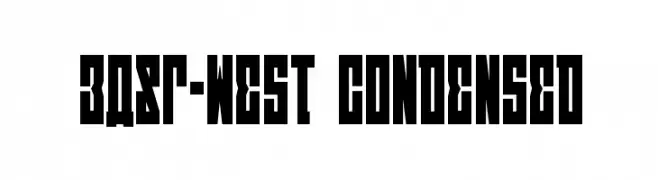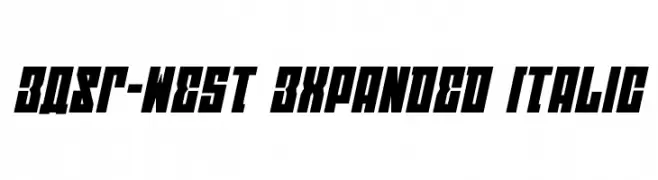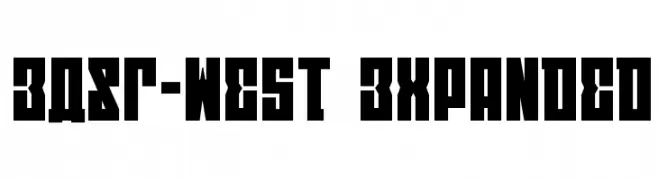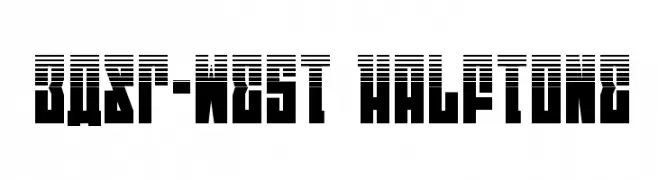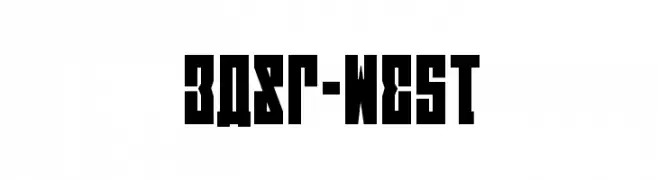
• EAST-west
A bold, geometric font with a strong, angular design.
• EAST-west 3D
A bold, 3D geometric font with a strong, impactful presence.
• EAST-west 3D Italic
A bold, 3D italic font with a dynamic and modern style.
• EAST-west Condensed
A bold, condensed, and geometric font with a strong visual impact.
• EAST-west Condensed Italic
A bold, condensed italic font with sharp angles and high contrast, ideal for dynamic headlines.
• EAST-west Expanded
A bold, geometric font with a modern and impactful style.
• EAST-west Expanded Italic
A bold, expanded, and italic font with a modern, dynamic style.
• EAST-west Gradient
A bold, striped font with a gradient effect, offering a modern and dynamic look.
• EAST-west Gradient Italic
A bold, italicized font with a gradient effect, offering a modern and dynamic style.
• EAST-west Halftone
A bold, geometric font with a unique halftone pattern for modern, eye-catching designs.